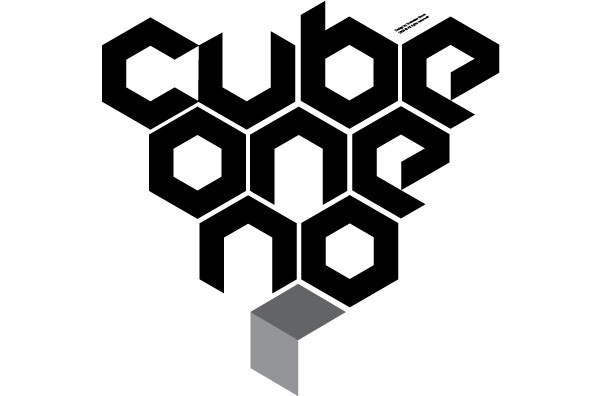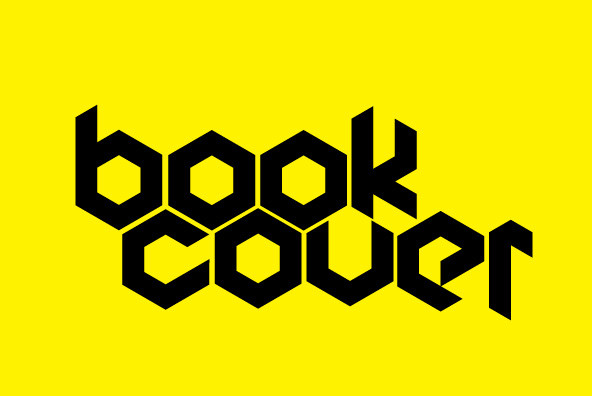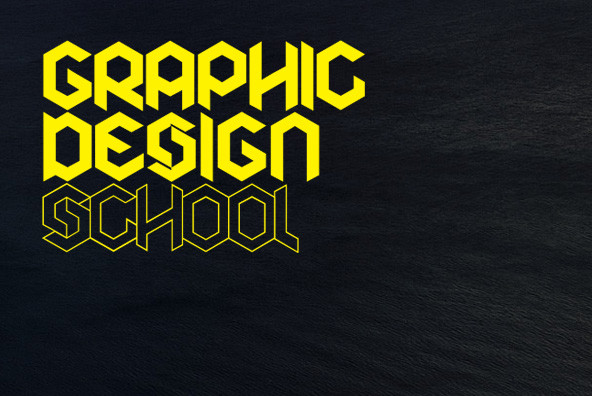
Cubic is a custom font which is applicable for any type of graphic design - web, print, motion graphics etc. It is perfect for t-shirts and other items.